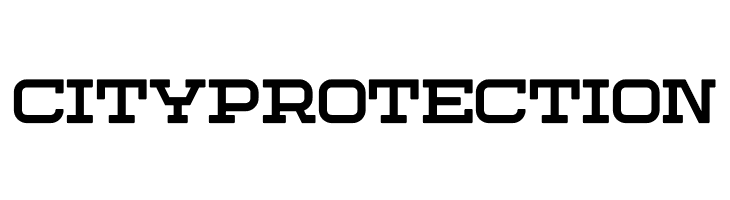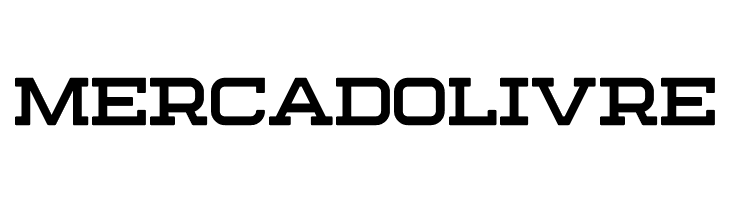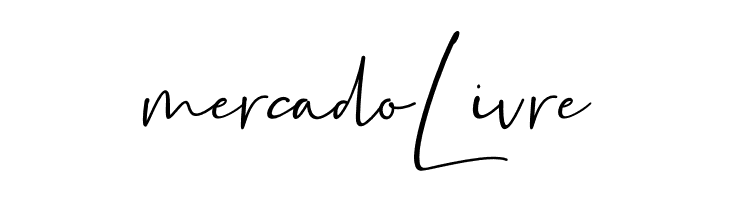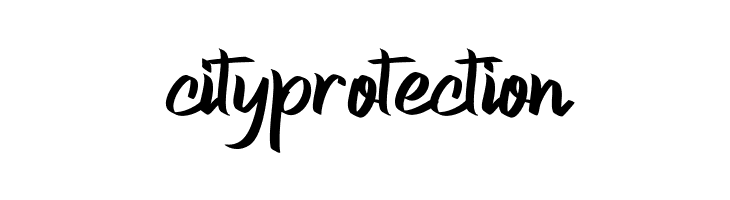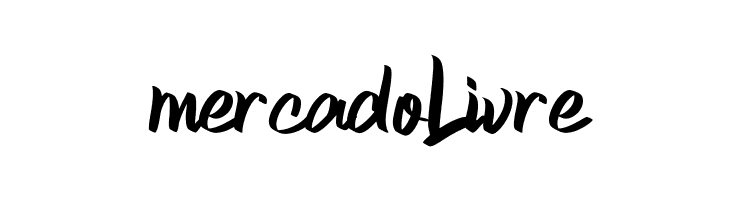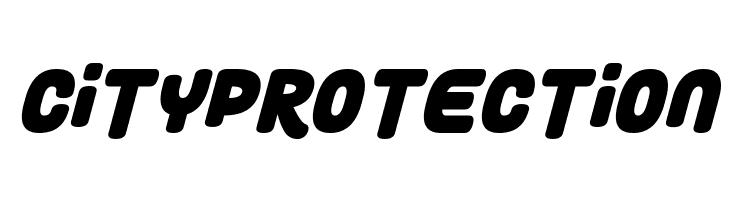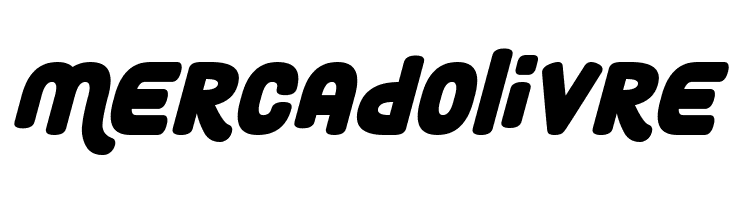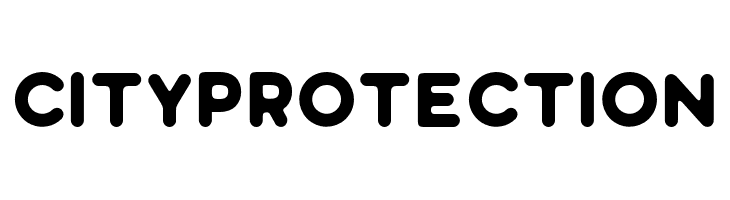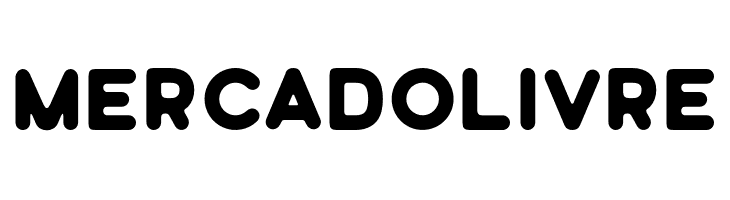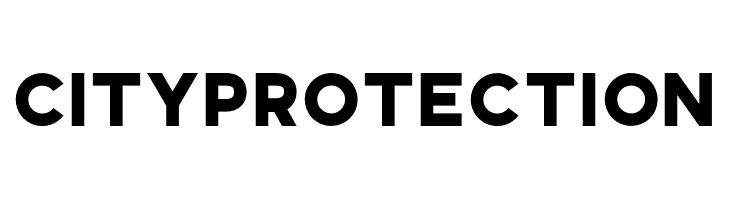
A playful, bold font with rounded edges and a bubbly, friendly appearance.
A playful, rounded font with a bold, bubbly appearance.
A bold, rounded, and italic font with a playful and dynamic style.
A playful, rounded font with smooth curves and uniform stroke width.
A playful, bold font with rounded, bulbous characters and a whimsical style.
Abstract decorative symbols, not a valid font.
A playful, pixelated outline font with a retro, biscuit-like style.
A playful handwritten font with smooth, rounded strokes and a whimsical style.
A delicate and flowing script font with elegant, continuous strokes.
A bold, cursive script with playful, interconnected letters and elegant swashes.
A bold slab serif font with rounded edges, perfect for impactful headlines.
A semi-rounded sans-serif font with a clean, geometric design.
A dynamic, brush-style font with expressive, hand-drawn strokes.
A bold, distressed font with a vintage, textured appearance.
A bold, jagged font with spiky, energetic characters.
A lively handwritten font with fluid strokes and playful loops.
An elegant, flowing script font with a cursive, handwritten style.
A bold, modern sans-serif font with high contrast and clean lines.
A bold, rounded sans-serif font with a modern and friendly style.
A modern, rounded sans-serif font with a clean and friendly style.
A bold, rounded typeface with smooth curves and a friendly appearance.
A bold, rounded, and italic font with a friendly and dynamic style.
A modern, rounded italic font with a friendly and approachable style.
A bold, pixelated font with a retro, edgy style.
A bold, playful font with rounded characters and a youthful vibe.
A bold, expressive handwritten font with dynamic strokes.